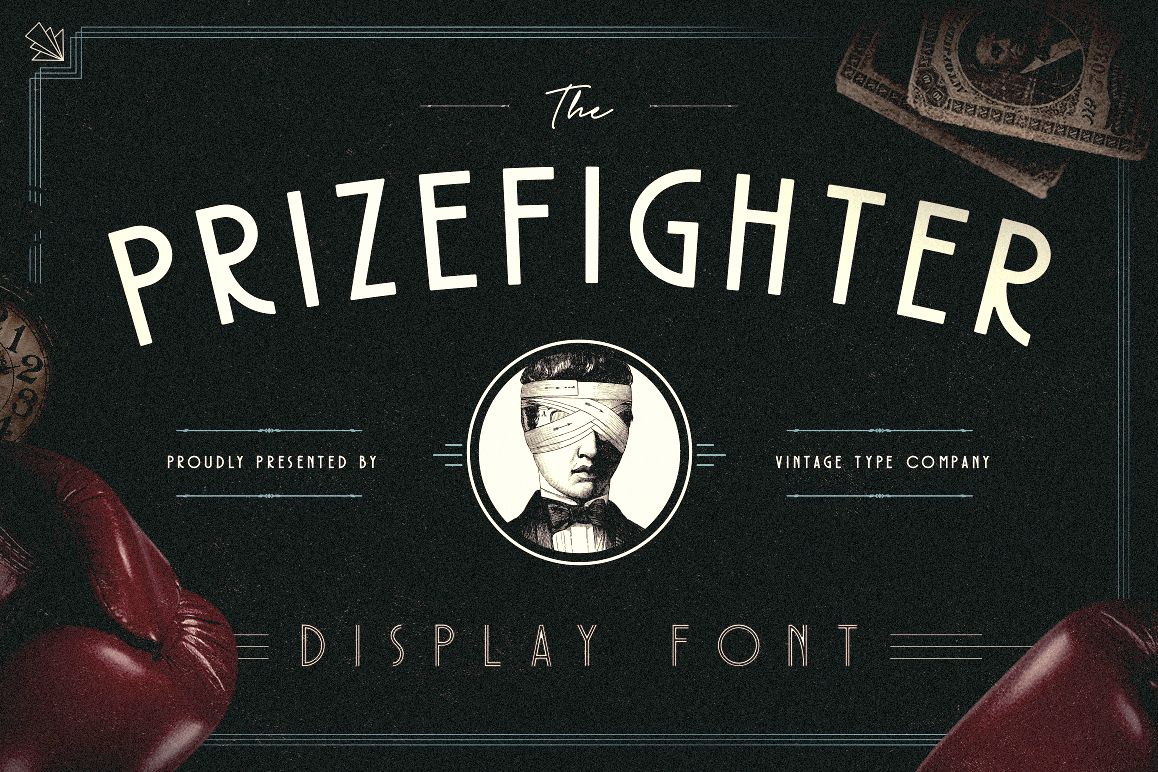
Prizefighter Display Font
Prizefighter Display Font is the newest display font from Vintage Type Company. This font is a clean, smooth, deco display font with 4 different styles that you can mix and match for a variety of uses. Prizefighter sports a condensed body with a taller than average x-height on most glyphs, as well as rounded corners for that signature smooth/inked up look you get from VTCo. fonts.
Prizefighter also comes with multilingual support for most Euro languages, as well as all standard latin numerals and punctuation.